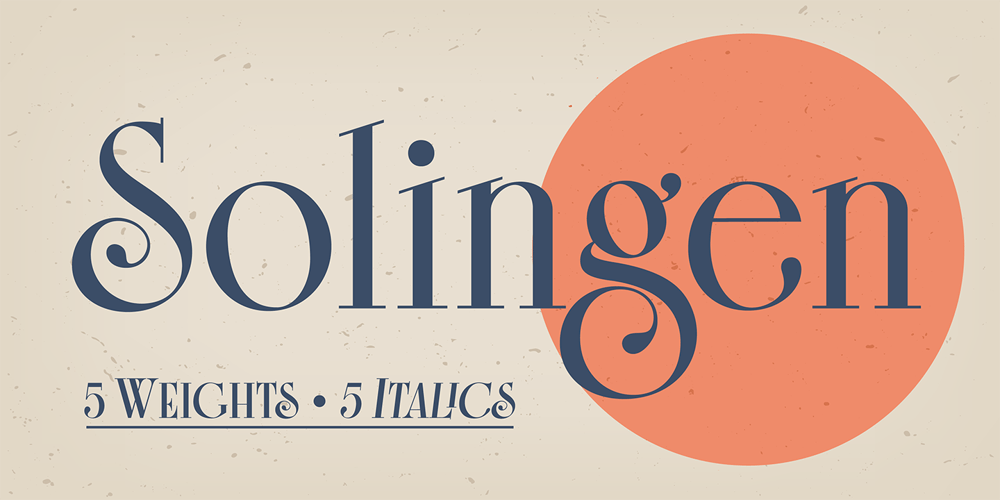
Solingen Font Family was designed by Mott Jordan and published by Mysterylab. Solingen contains 10 styles and family package options. Solingen is an elegant display serif font well suited to logo design applications. The capital letter set features many unique double-letter pairings which serve as inspirational design features when creating posh, delicate, and luxurious logos. Suggested uses for Solingen might include high-end branding for boutique apparel, accessories, jewelry, or cosmetics; unique wedding invitation headlines; packaging for personal care items, and much more.In many applications, the ligatures feature is turned on by default as Standard Ligature alternates, but these can generally be easily overridden in the Glyphs panel when you prefer to use the standard characters instead.